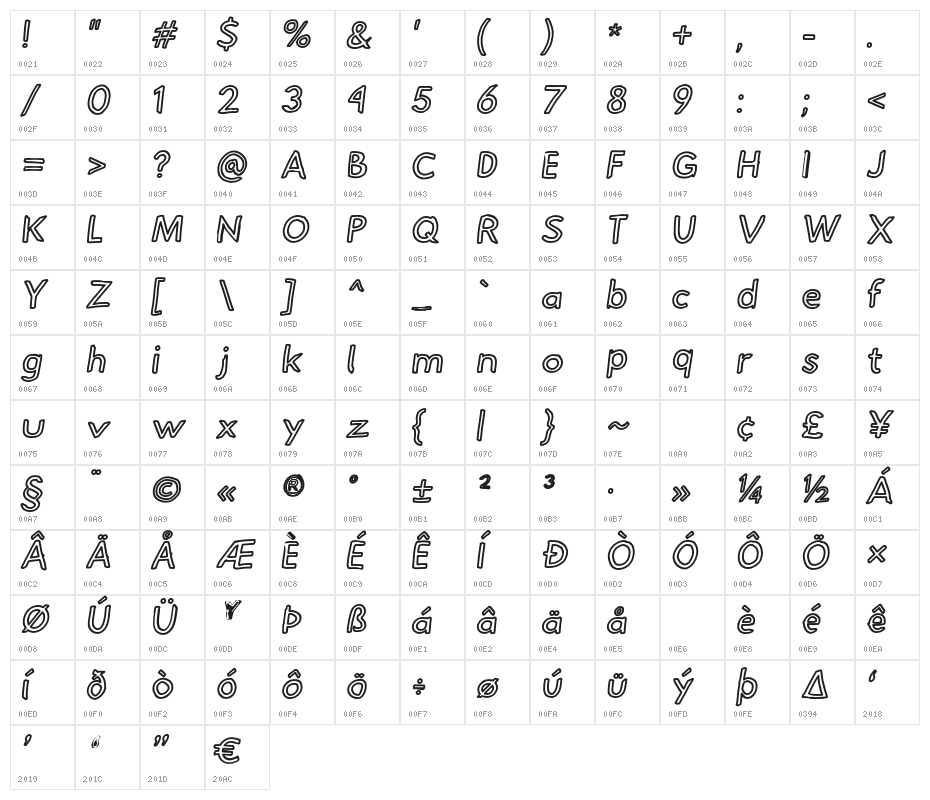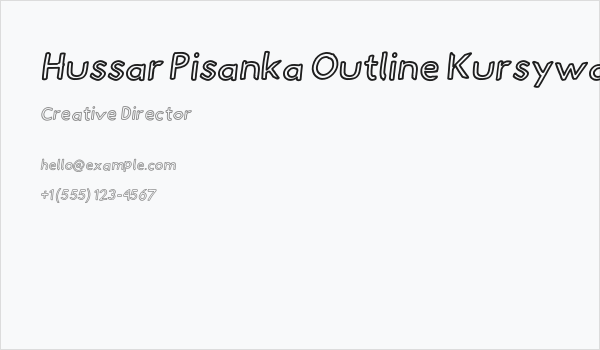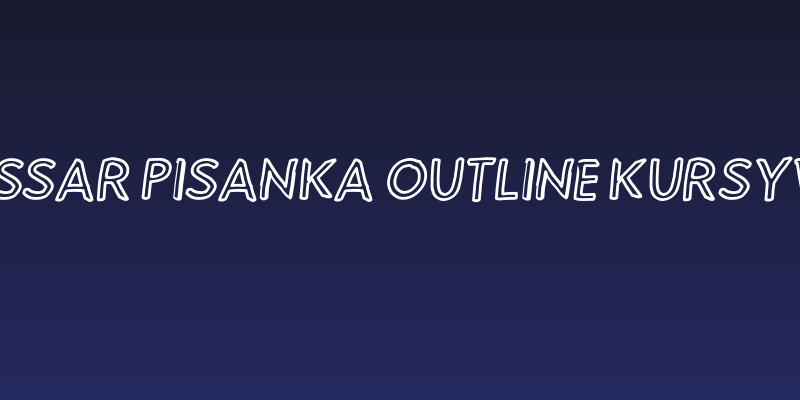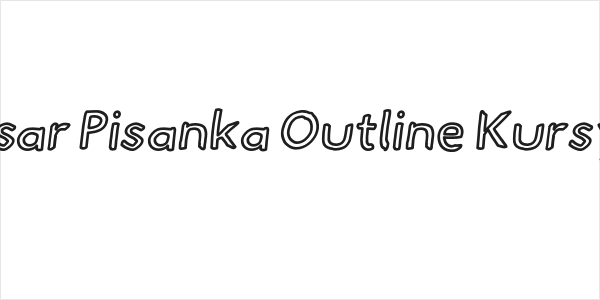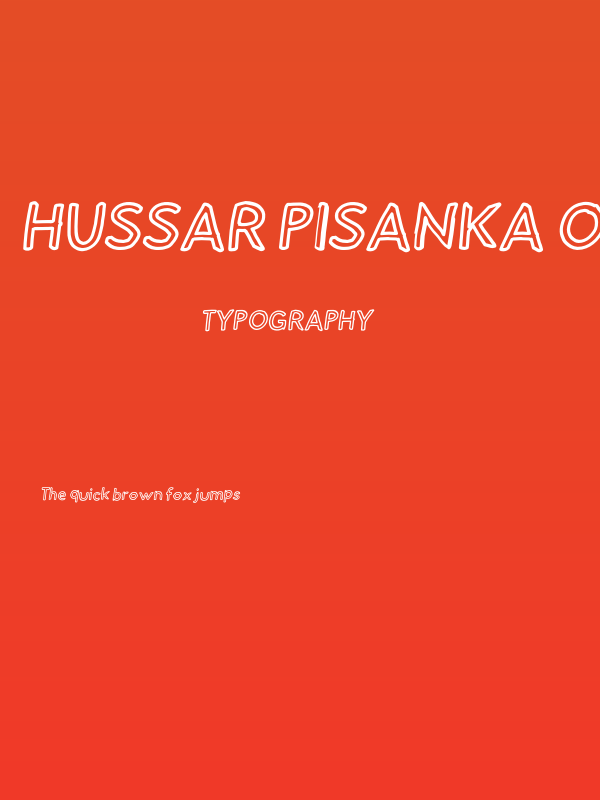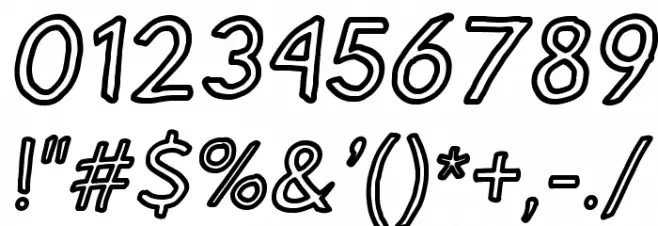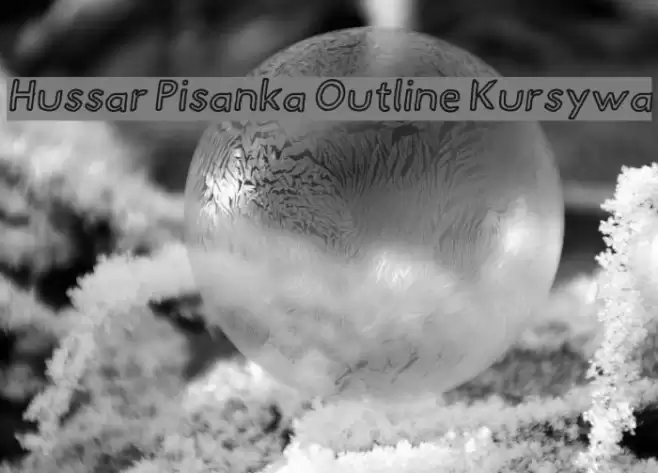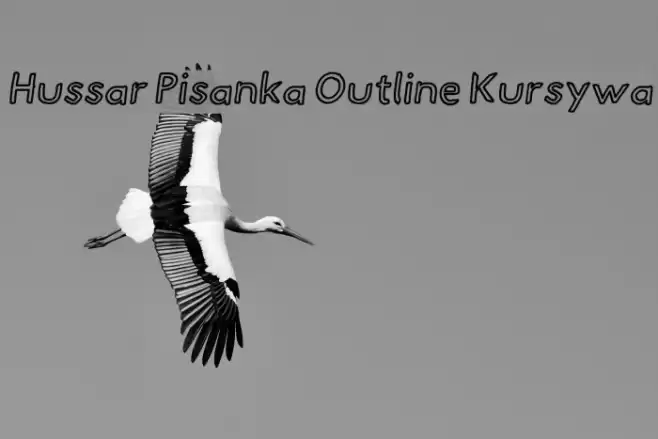
Hussar Pisanka Outline Kursywa Font
Hussar Pisanka Outline Kursywa Description
This font features a playful and dynamic outline style, characterized by its bold and rounded letterforms. Each character is defined by a consistent, thick outline that gives it a distinct and eye-catching appearance. The uppercase and lowercase letters maintain a uniform style, with smooth curves and a slightly informal, handwritten feel. The numerals and special characters are designed to match the overall aesthetic, providing a cohesive look across all elements. This font's unique outline design makes it stand out, offering a modern twist on traditional cursive forms.
| Proposed Projects | Ideal for children's book covers, playful branding, posters, and creative invitations. |